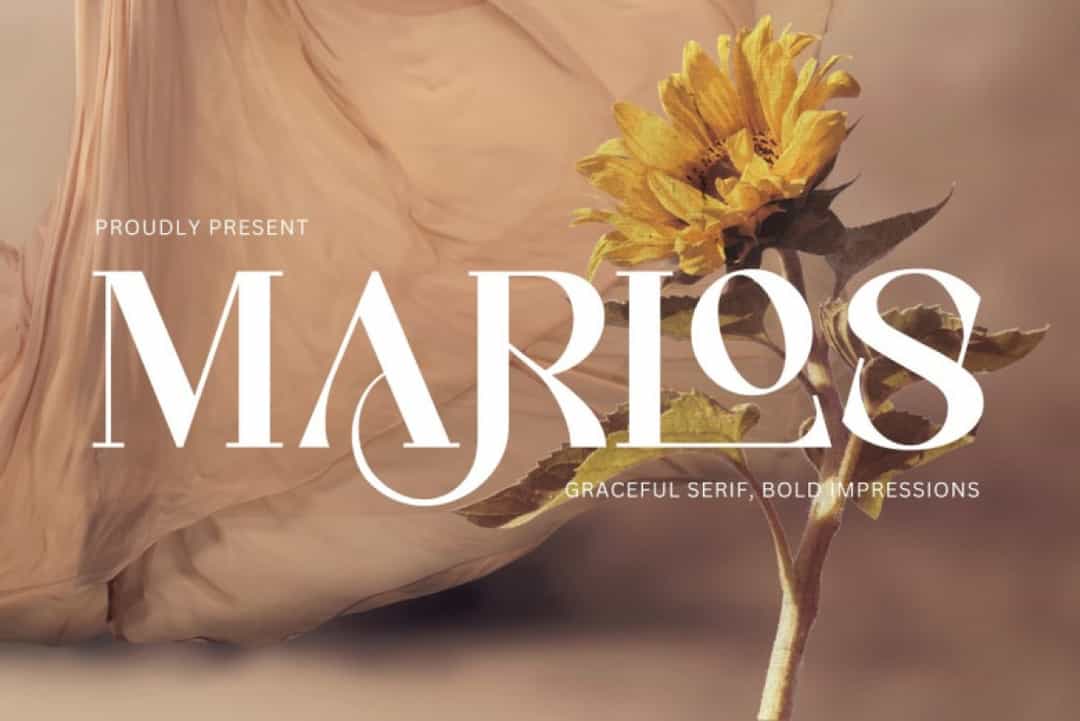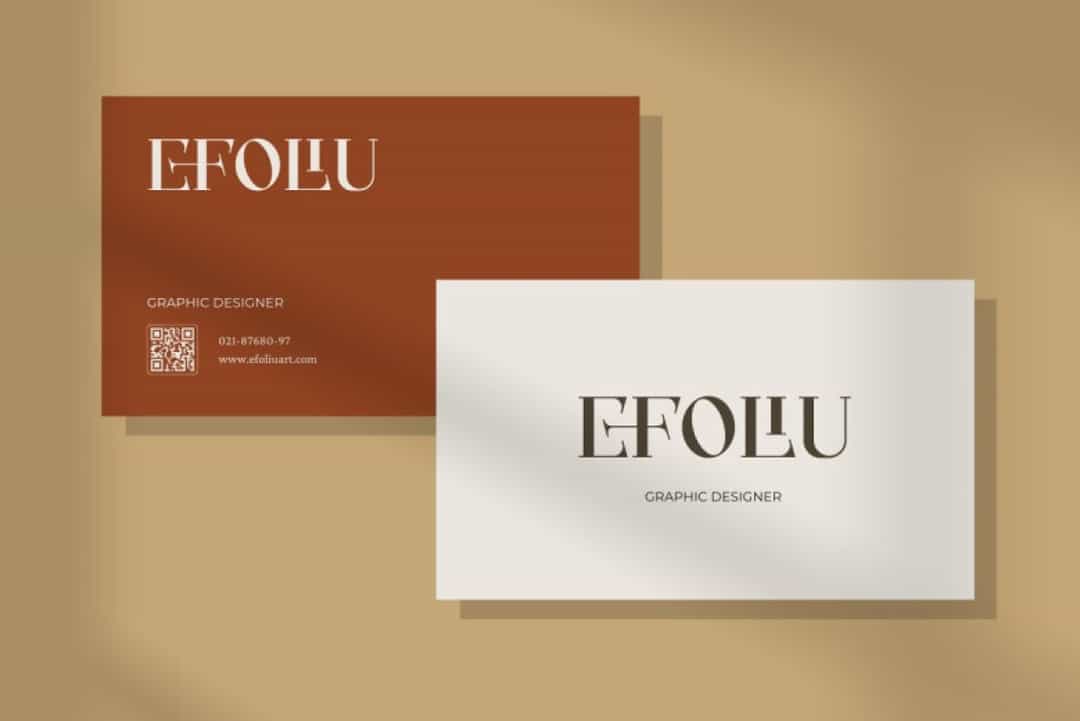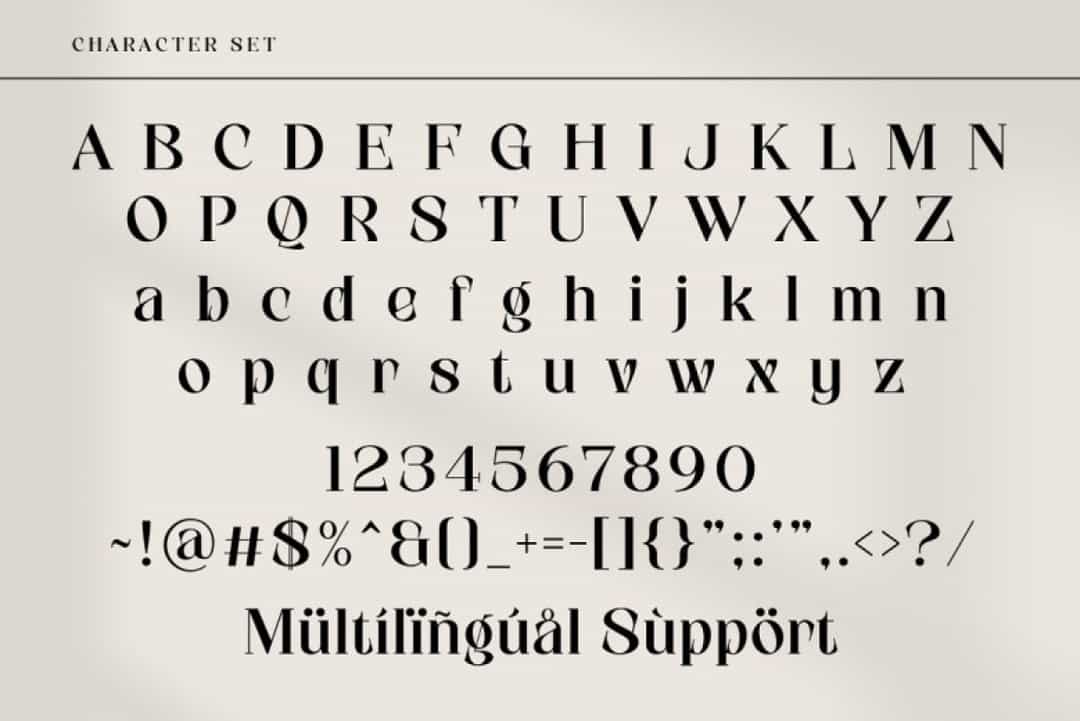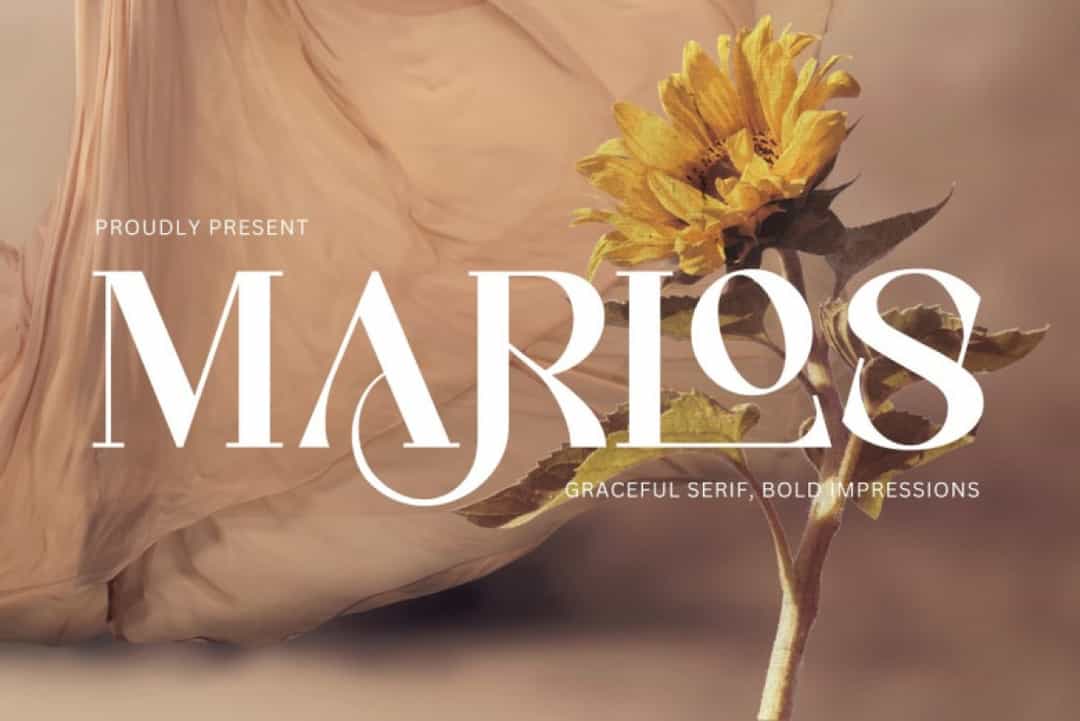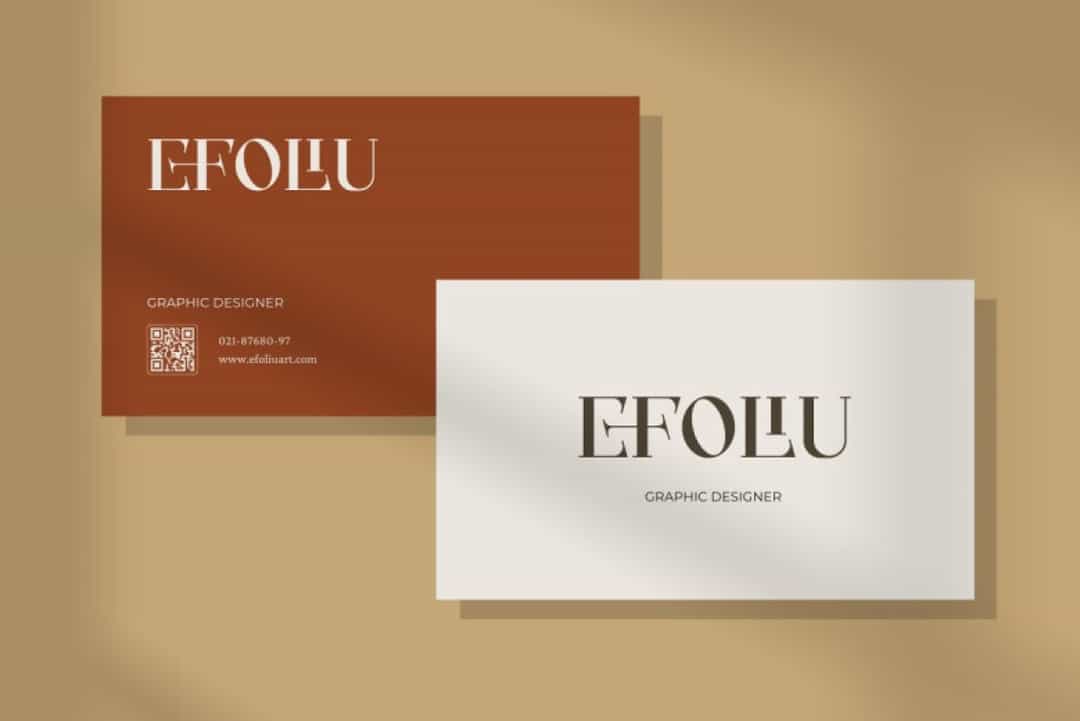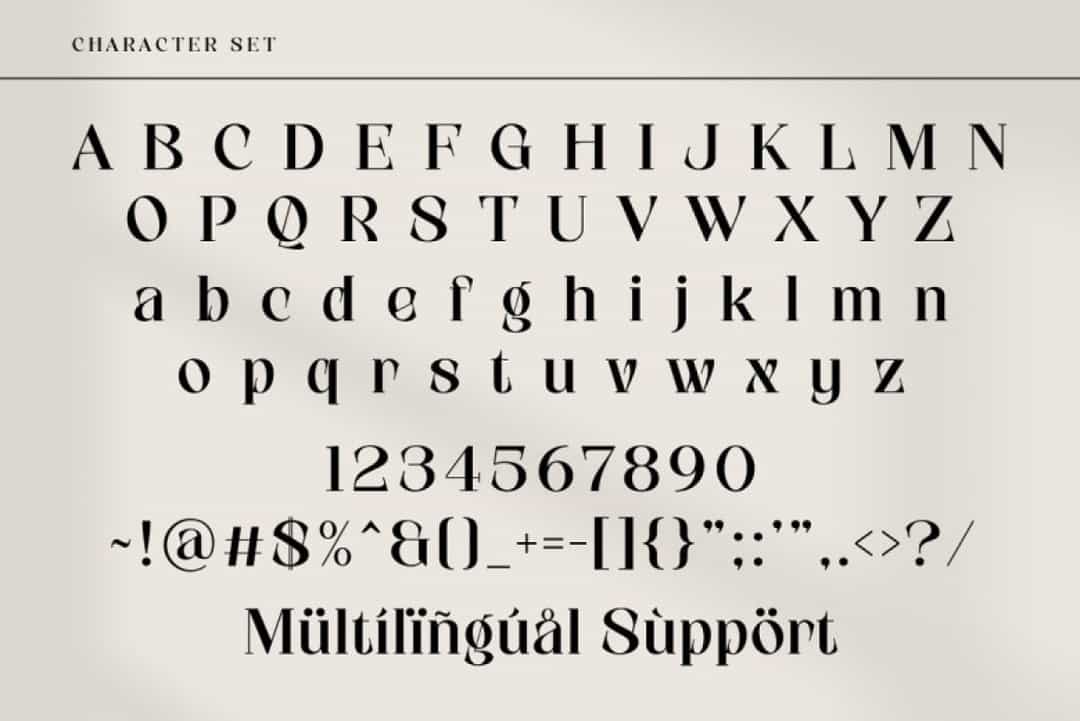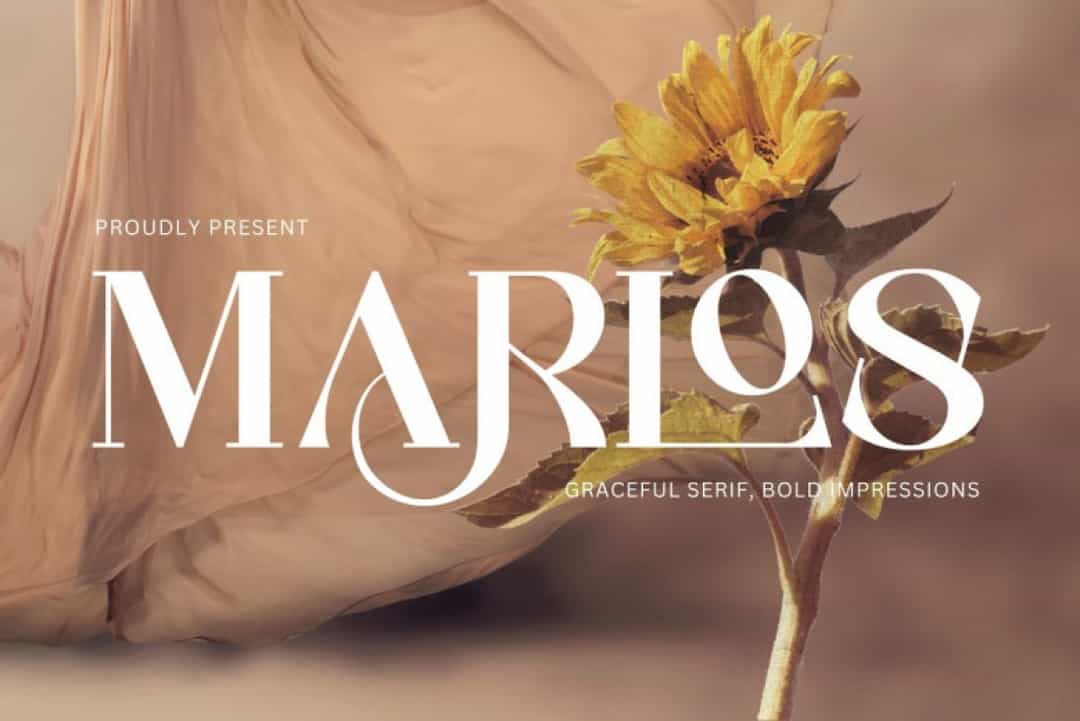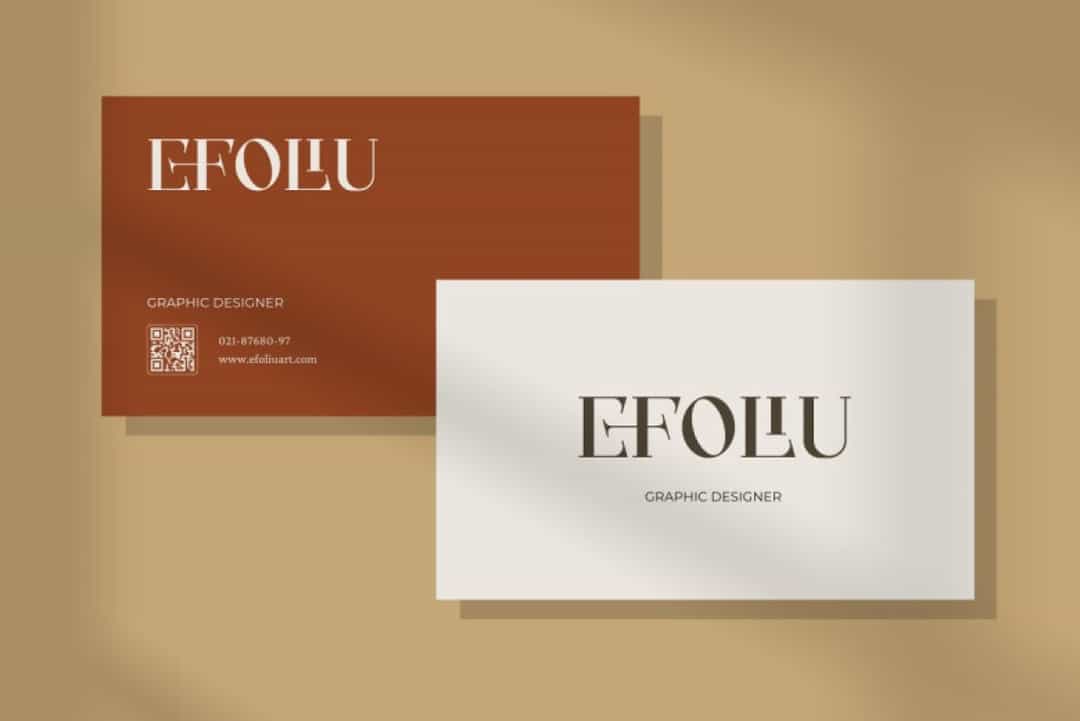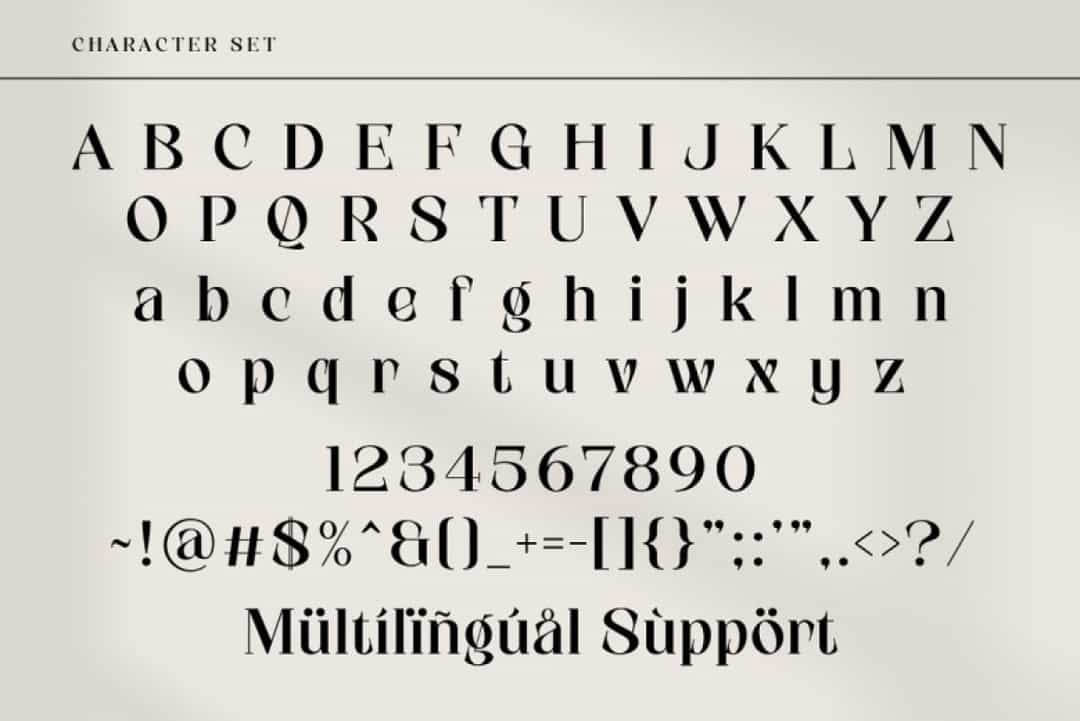
Discover Marlos Font, part of the Serif collection—a versatile and unique font perfect for adding a personal touch to your projects. Download it for free and enjoy crafting designs with style, from invitations to social media posts. This font is available exclusively for personal use, giving you the freedom to create without limits. Unlock your creativity with Marlos Font today!
“Introducing ‘Marlos,’ an elegant serif typeface which effortlessly marries boldness and grace. Boasting luxurious serifs and powerful letters, ‘Marlos’ makes an indelible and striking first impression.”